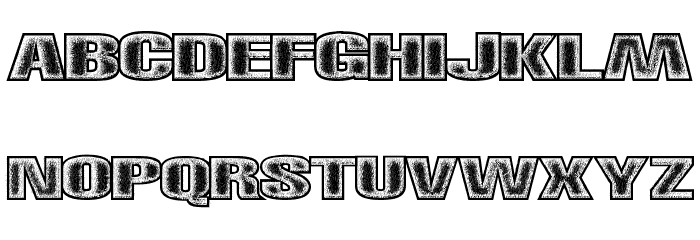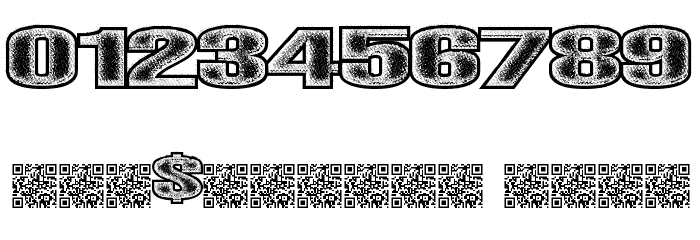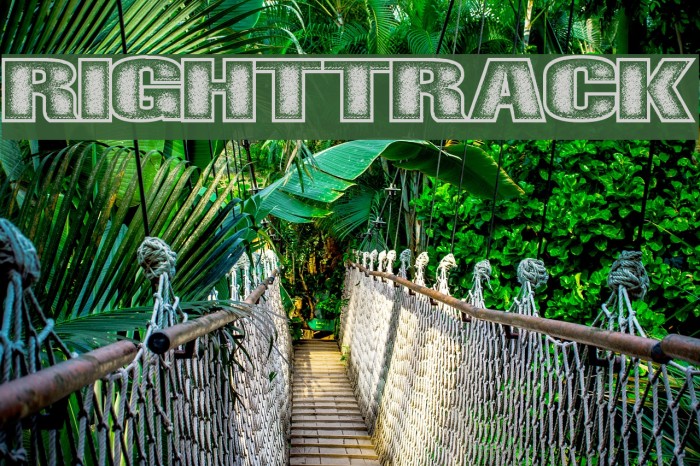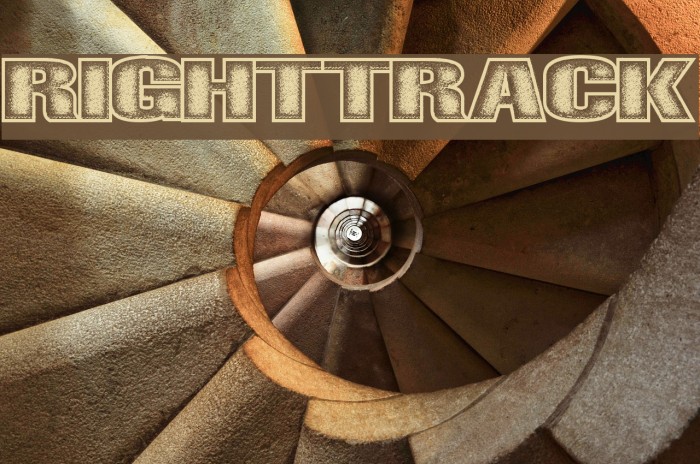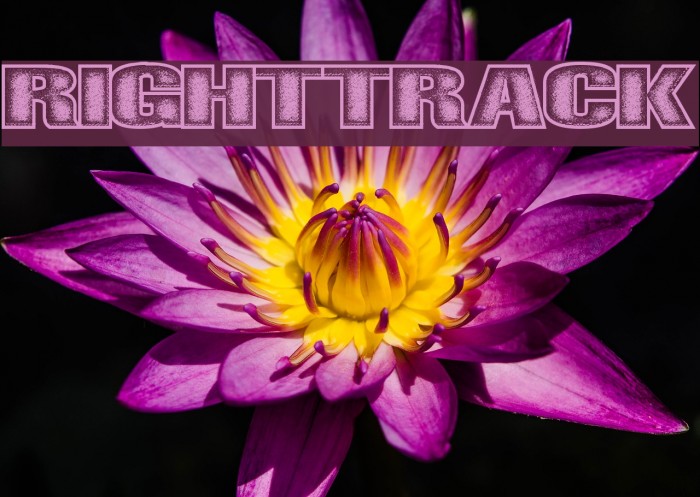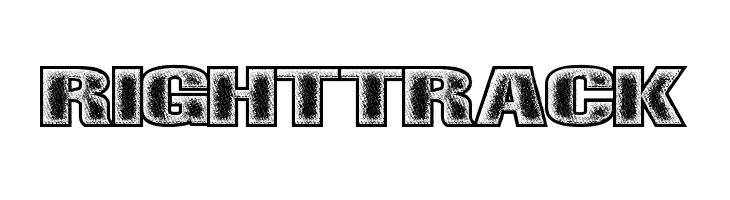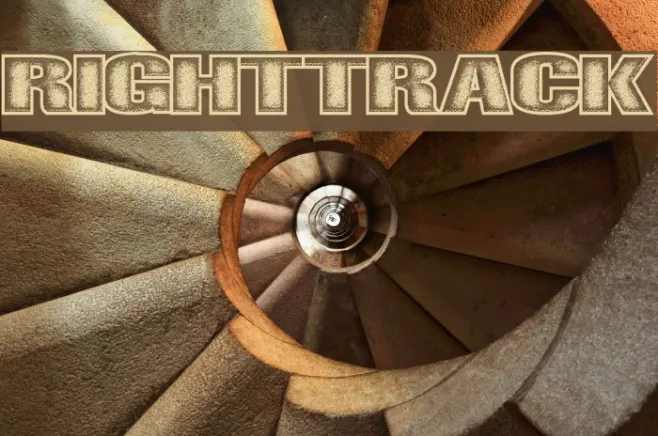
righttrack Font
This font features a bold, three-dimensional style with a distinct halftone pattern that gives it a textured appearance. The characters are uppercase and numerals, each with a shadow effect that enhances their depth and visual impact. The design is reminiscent of vintage comic book lettering, with a playful yet strong presence. The halftone texture adds a retro feel, making it suitable for projects that require a nostalgic or eye-catching look. The boldness of the letters ensures readability while maintaining a decorative flair.
A bold, textured font with a vintage halftone pattern and 3D shadow effect.
- Proposed Projects: Ideal for retro-themed posters, comic book covers, vintage advertisements, and eye-catching headlines.
- Overall Style: Vintage